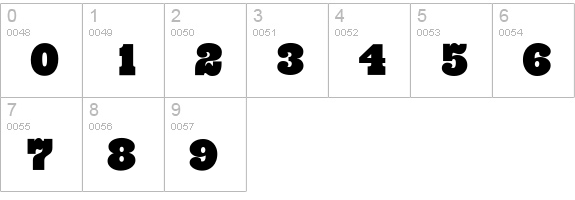
CgBehemothSeCd Font Details
CgBehemothSeCd font is a bold and eye-catching typeface that exudes power and strength. Its sharp edges and sleek design make it perfect for headlines, logos, and branding projects that require a commanding presence. This font commands attention and leaves a lasting impression on the viewer. Best of all, CgBehemothSeCd font is available for free download at FontsMarket.com. Whether you're a designer looking to make a statement or a business in need of a strong visual identity, this font is sure to meet your needs. Don't miss out on the opportunity to add this striking typeface to your collection today!